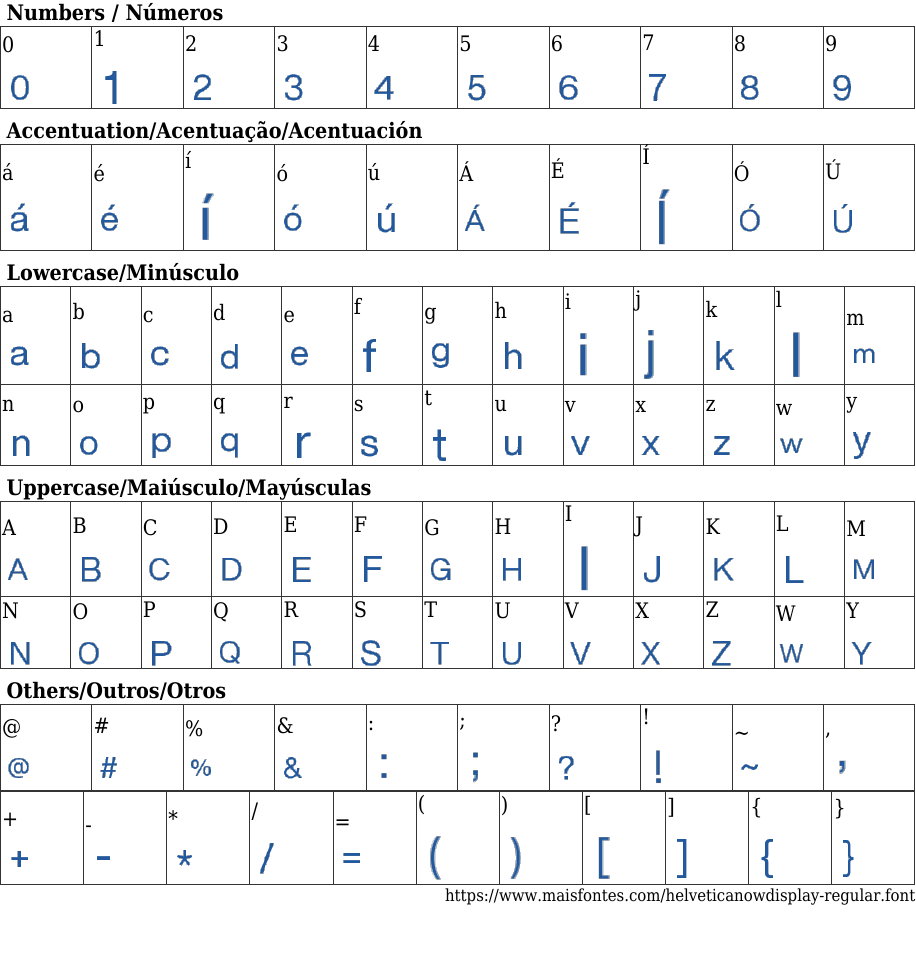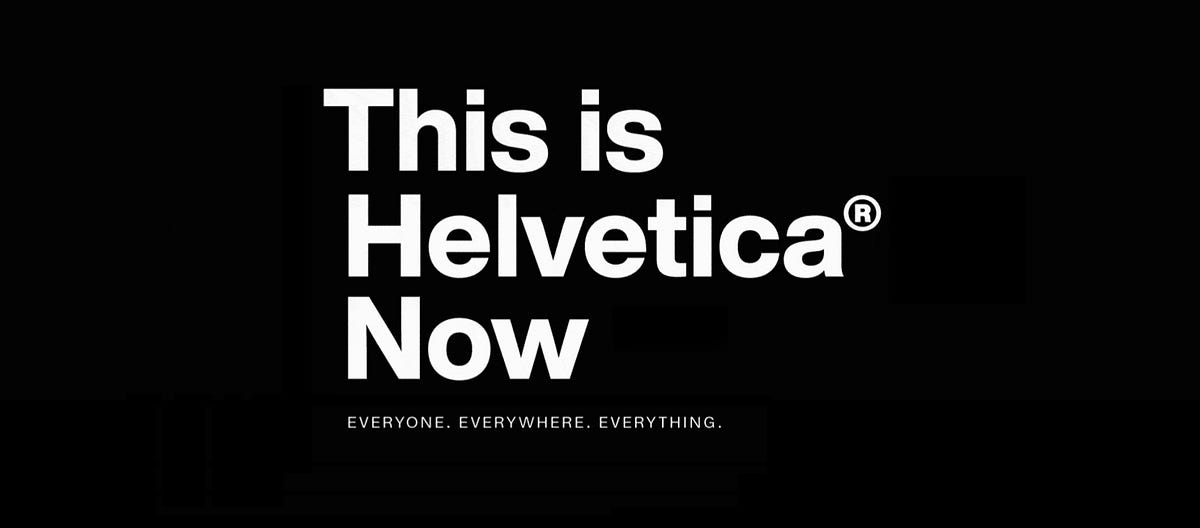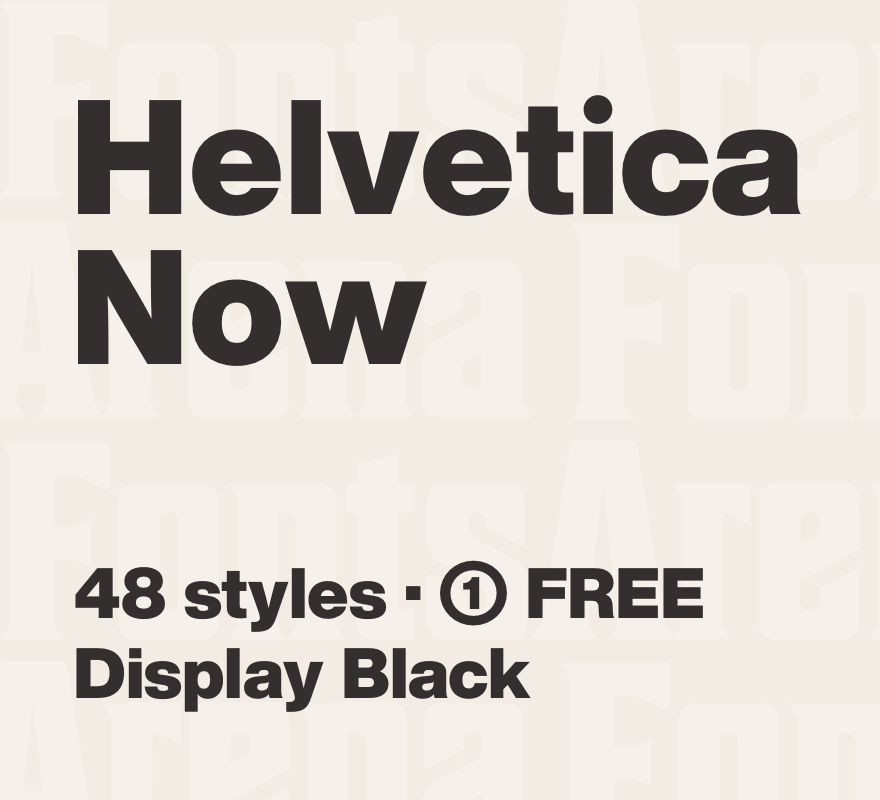
Helvetica Now Display Font
Helvetica Now Display Font - Download helvetica now display font, a new chapter in the story of the world’s most famous typeface. Each one has been carefully tailored to. Helvetica now comprises 48 fonts, consisting of three distinct optical sizes:
Helvetica now comprises 48 fonts, consisting of three distinct optical sizes: Each one has been carefully tailored to. Download helvetica now display font, a new chapter in the story of the world’s most famous typeface.
Each one has been carefully tailored to. Download helvetica now display font, a new chapter in the story of the world’s most famous typeface. Helvetica now comprises 48 fonts, consisting of three distinct optical sizes:
Helvetica now comprises 48 fonts, consisting of three distinct optical sizes: Download helvetica now display font, a new chapter in the story of the world’s most famous typeface. Each one has been carefully tailored to.
Each one has been carefully tailored to. Helvetica now comprises 48 fonts, consisting of three distinct optical sizes: Download helvetica now display font, a new chapter in the story of the world’s most famous typeface.
Download helvetica now display font, a new chapter in the story of the world’s most famous typeface. Each one has been carefully tailored to. Helvetica now comprises 48 fonts, consisting of three distinct optical sizes:
Helvetica now comprises 48 fonts, consisting of three distinct optical sizes: Each one has been carefully tailored to. Download helvetica now display font, a new chapter in the story of the world’s most famous typeface.
Each one has been carefully tailored to. Helvetica now comprises 48 fonts, consisting of three distinct optical sizes: Download helvetica now display font, a new chapter in the story of the world’s most famous typeface.
Helvetica now comprises 48 fonts, consisting of three distinct optical sizes: Each one has been carefully tailored to. Download helvetica now display font, a new chapter in the story of the world’s most famous typeface.
Helvetica Now Comprises 48 Fonts, Consisting Of Three Distinct Optical Sizes:
Download helvetica now display font, a new chapter in the story of the world’s most famous typeface. Each one has been carefully tailored to.